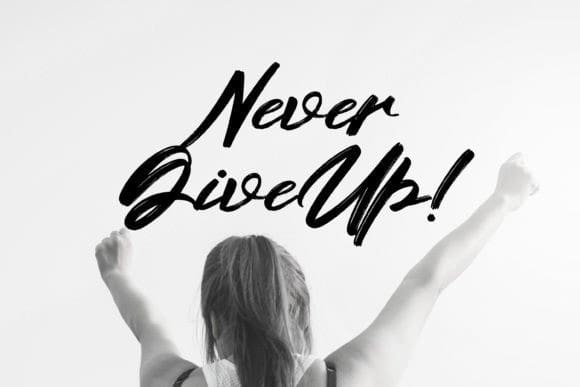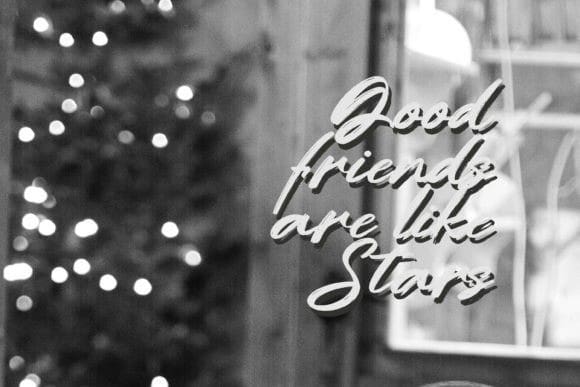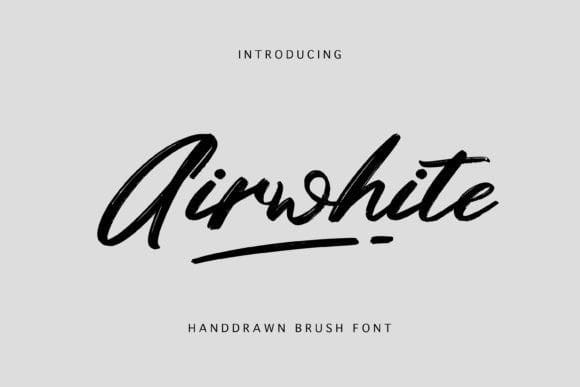
Airwhite Brush Font
Airwhite Brush Font is an elegant script font, perfect for wall displays, branding projects, magazines, social media post, logos, advertisements, product designs, labels, photography and more. This font is PUA encoded which means you can access all of the glyphs and swashes with ease!